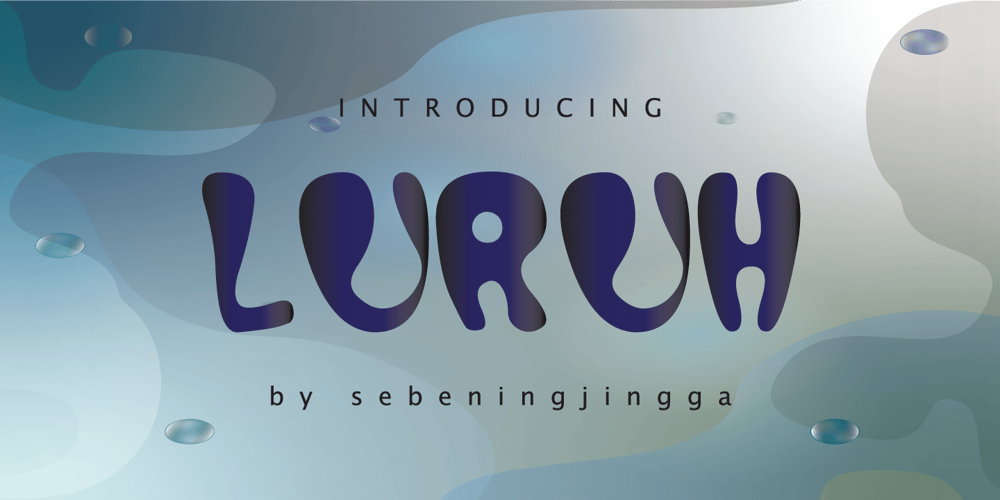
Luruh Font Family was designed by Nur Firdaus and published by Sebeningjingga. Luruh contains 1 styles and family package options. Luruh are inspired by the flow of running and melting water. Luruh is guaranteed to make your text stand out – perfect for logos, printed quotes, invitations, cards, product packaging, and headers. Publisher: Sebeningjingga